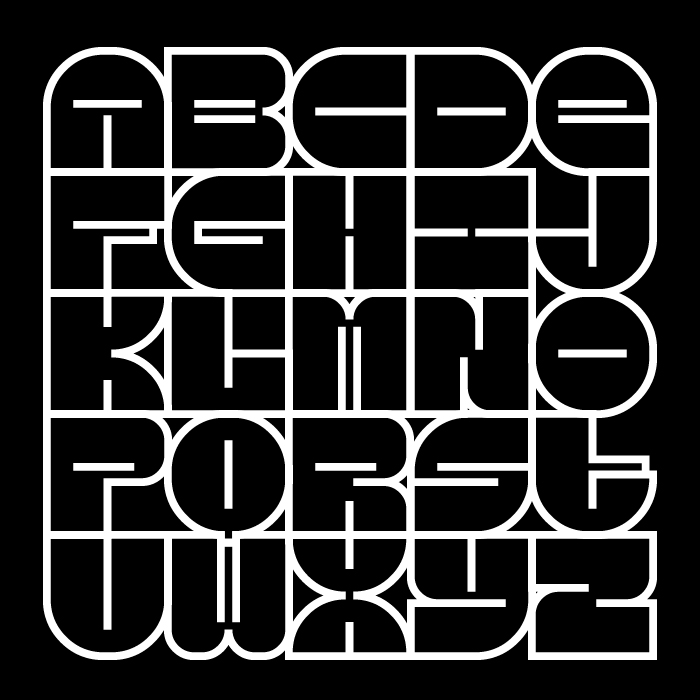
An outline version of Blueback, with slightly different proportions, x-height: 2⅛ bricks.
Precious, elegant, charismatic... another great piece of a master. Nice to find your newest fonts here again, compañero. 10/10
Typically four - simply great.
Love it! I see you forgot the umlat on the UC Ï on Blueback.
P.S. on Blueback, the ÿ has a bit of extra space after it…
I love your crisp, clean, consistent creativity.
wow that's stunning!
Hi, how do you make outlines on fontstruct?
Dope! This one makes me think, 'I wish I could have made this."
Outlining? Niiiiiiiiiice.